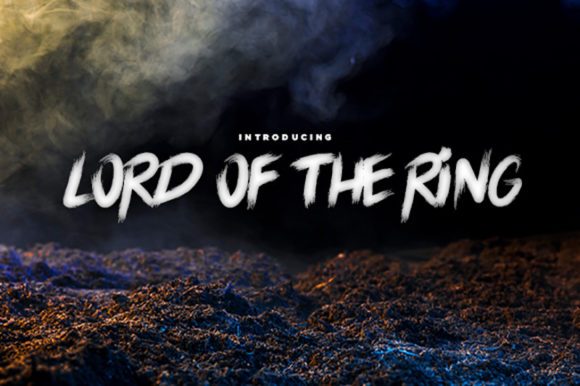
Step into a world of adventure, mystery, and magic with the Lord of the Ring Font. Inspired by the iconic lettering seen in The Lord of the Rings movies and merchandise, this brushed display font brings a powerful medieval charm to your creative projects.
Whether you’re designing t-shirts, logos, fantasy book covers, posters, or website headers, the Lord of the Ring font style infuses every word with an old-world feel that resonates with fans and newcomers alike.
In this guide, discover where to download Lord of the Ring-inspired fonts for free, creative ways to use them, and everything you need to know to bring a bit of Middle-earth to your next project.
What is the Lord of the Ring Font?
The original font used in The Lord of the Rings title is based on a custom design created for the films. Its distinctive look combines medieval calligraphy, Gothic influences, and elegant, hand-drawn curves.
While the exact film logo font isn’t publicly available, many designers have recreated similar fonts inspired by its style. The most popular among them is the Ringbearer Font – a free typeface made to resemble the movie’s logo and iconic lettering.
There are also newer, brushed display fonts, sometimes branded as “Lord of the Ring” fonts, which add artistic brush textures to evoke the rugged feel of fantasy adventures.
Why Use a Lord of the Ring-Inspired Font?
Adding a fantasy-style font to your design isn’t just about looks – it’s about storytelling. Here’s why designers and fans love using these fonts:
🧙♂️ Instantly recognizable style: The medieval brush strokes and curved letterforms create a sense of magic and adventure.
📜 Perfect for fantasy themes: Whether it’s a Dungeons & Dragons event poster, a book title, or fan art, these fonts capture the essence of epic storytelling.
🎨 Creative versatility: Beyond fantasy, the brushed look can add personality to album covers, flyers, website headers, and even apparel.
💫 Unique branding: If you’re building a brand in gaming, comics, or entertainment, a Lord of the Ring-inspired font helps your logo or title stand out.
Although the exact movie font is proprietary, there are several free fonts that recreate its style beautifully:
1️⃣ Ringbearer Font – The most famous fan-made font, closely resembling the film’s title design.
2️⃣ Elven Common Speak – Another creative fantasy font inspired by Elvish aesthetics.
3️⃣ Lord of the Rings Font (various brush versions):
Some designers offer brush-style Lord of the Ring fonts, blending medieval structure with a modern brush texture.
Ideal for t-shirts, posters, or headers.
Creative Uses for Lord of the Ring Font
While this font obviously fits perfectly into anything related to Tolkien, it also shines in many unexpected places:
🪶 Book covers & titles: Give fantasy novels, poetry, or historical fiction an authentic medieval touch.
👕 T-shirts & merchandise: Create fan shirts, hoodies, or mugs that stand out.
🎧 Album & music covers: Add drama to covers for folk, rock, or metal bands.
📢 Event flyers: Promote fantasy fairs, renaissance festivals, or themed parties.
🌐 Website headers: Build immersive websites for creative projects, games, or fandom communities.
🖼️ Wall art & posters: Perfect for inspirational quotes or custom decor with a medieval vibe.
Fonts Similar to Lord of the Ring Font
If you want variety or complementary fonts, try these:
Hobbiton Brushhand: Another hand-drawn font inspired by Tolkien’s world.
Elven Common Speak: Unique, decorative letters with an Elvish feel.
Moria Citadel: Bold and angular, perfect for powerful titles.
Kingthings Calligraphica: A playful calligraphy font with medieval elements.
Uncial Antiqua (Google Fonts): Rounded, historical style that pairs well with fantasy fonts.
Mixing these fonts together or with clean sans-serifs like Open Sans or Montserrat can balance fantasy flair with modern readability.
Tips for Designing with Lord of the Ring Font
✨ Use sparingly: These fonts shine best as titles or headers, rather than full paragraphs.
🎨 Pair with simple fonts: For body text, choose clean serif or sans-serif fonts.
🌟 Play with effects: Add texture, gold gradients, or embossing to create a metallic, ancient look.
Combine fantasy fonts with textured backgrounds, vintage scroll elements, and earthy colors like gold, brown, and deep green.
Final Words: Bring Middle-earth Magic to Your Designs
The Lord of the Ring font is more than just type – it’s a bridge to an epic fantasy universe loved by millions. Whether you’re crafting fan art, a brand logo, or merchandise, this font transforms ordinary words into something legendary.